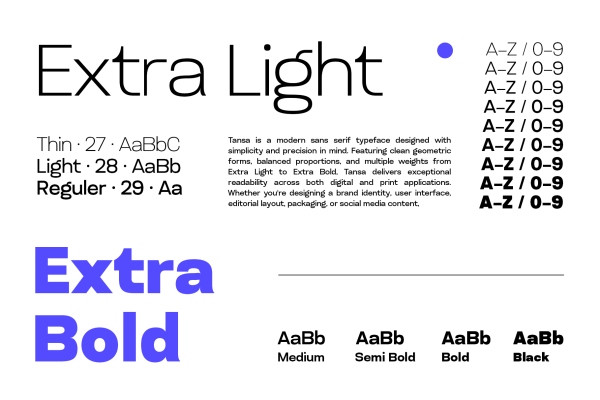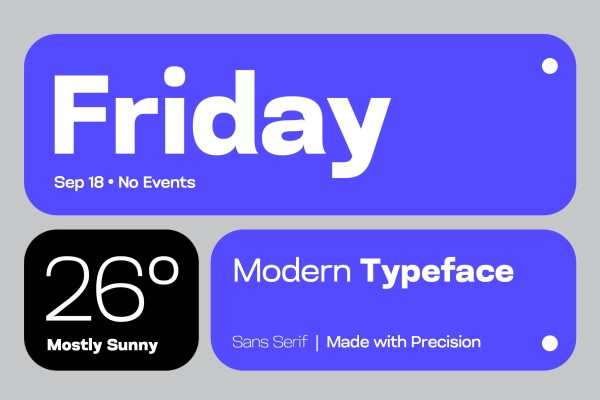
Tansa – UI Interface Sans Font
Tansa is a clean and modern Sans Serif typeface designed for sleek interfaces, digital products, and contemporary visual projects. With its balanced proportions and versatile character, Tansa works beautifully across UI design, branding, editorial layouts, posters, and more.
Featuring 9 weights, this Font Family gives you the flexibility to create clear hierarchy and consistent typography across any project. From subtle text to bold Display headlines, Tansa is built to keep your designs polished, modern, and effortlessly readable.
Tansa – UI Interface Sans Font features:
• Uppercase & Lowercase
• Punctuation & Numbers
• Multilingual
• Alternates
• Ligatures
• 8 Variable of Weights